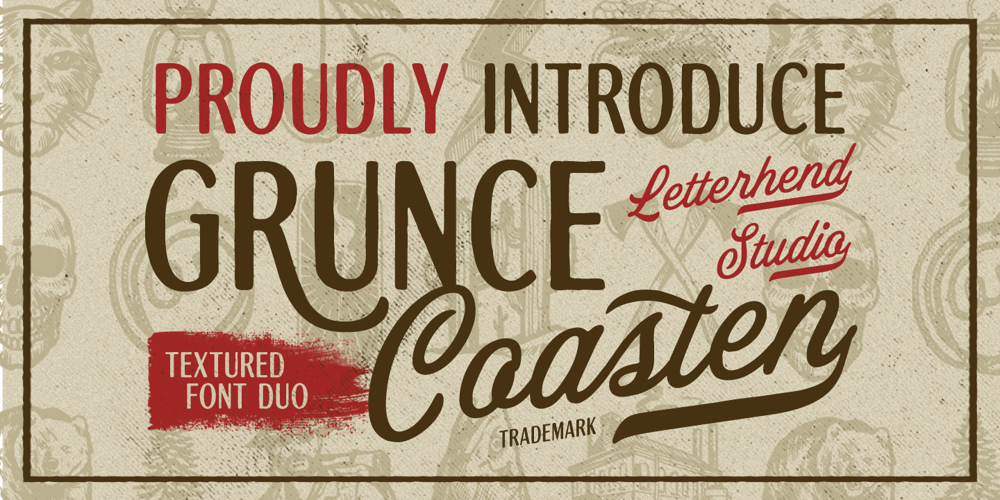
Grunce Coasten Font Family was designed by Hendry Juanda and published by Letterhend. Grunce Coasten contains 2 styles and family package options. Grunce Coasten is a vintage font duo consist of a script paired with a sans serif with a touch of classic look and feel. This type of font perfectly made to be applied especially in logo, headline, signage and the other various formal forms such as invitations, labels, logos, magazines, books, greeting / wedding cards, packaging, fashion, make up, stationery, novels, labels or any type of advertising purpose.Features : Uppercase & lowercase Numbers and punctuation Multilingual support PUA encoded